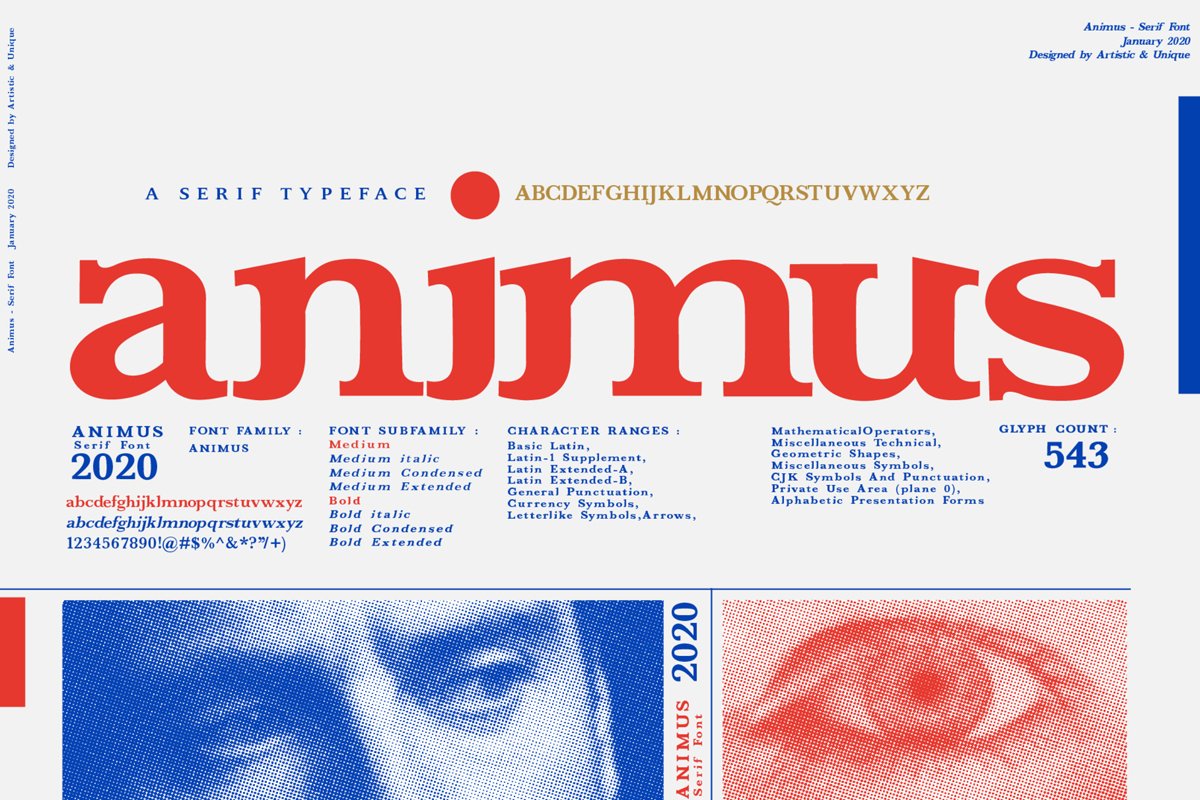
ANIMUS - Serif font family
ANIMUS Serif font - Multilingual (2020)
ANIMUS serif font,
Inspired by the Old style serif typeface and the character structures of today's modern serif fonts.
Due to its structure, this font can meet your needs in all your modern or classic creative projects.
It's absolutely perfect for titles, magazines, books, invitations, logos, packaging design, branding and more!
ANIMUS is a perfect font to have in your design ideas.
With this font you can create your unique designs.